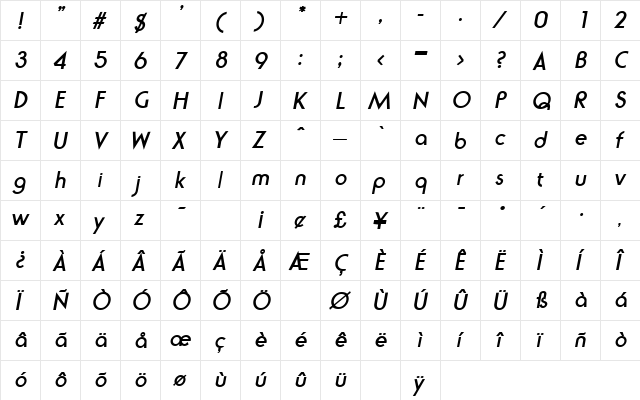
Ronda Bold Italic
Design Context for Ronda Typeface
Ronda offers clean, dependable letterforms without strong stylistic allegiance, making it a practical choice for designers who need flexibility. The dynamic lean of this cut emphasises speed and emphasis in any layout. Its bold stroke weight gives it real presence on the page.